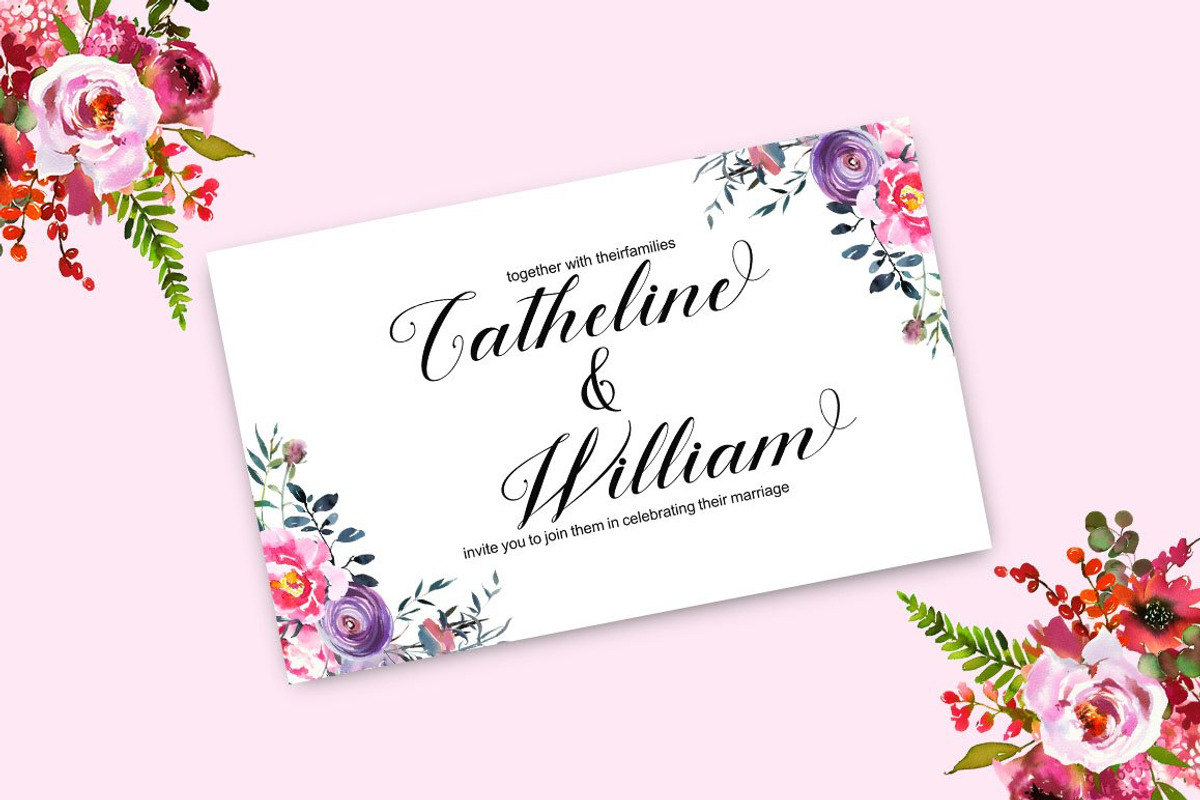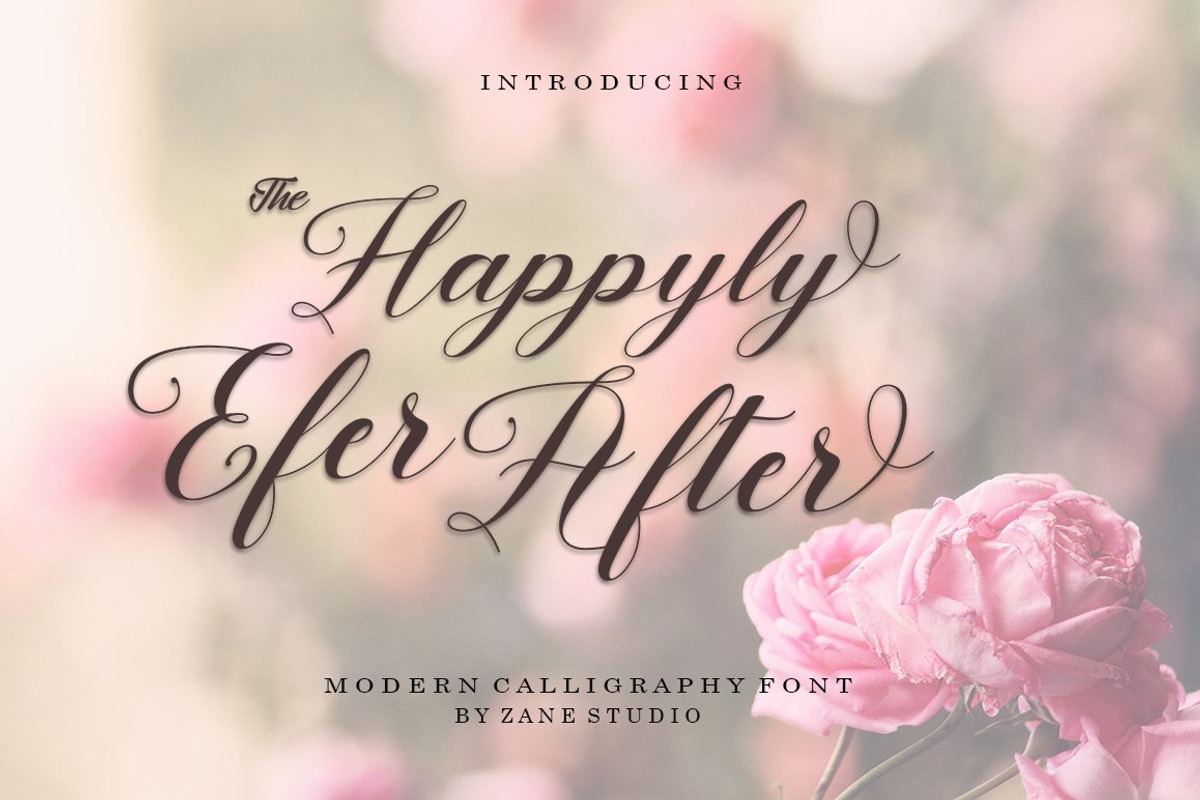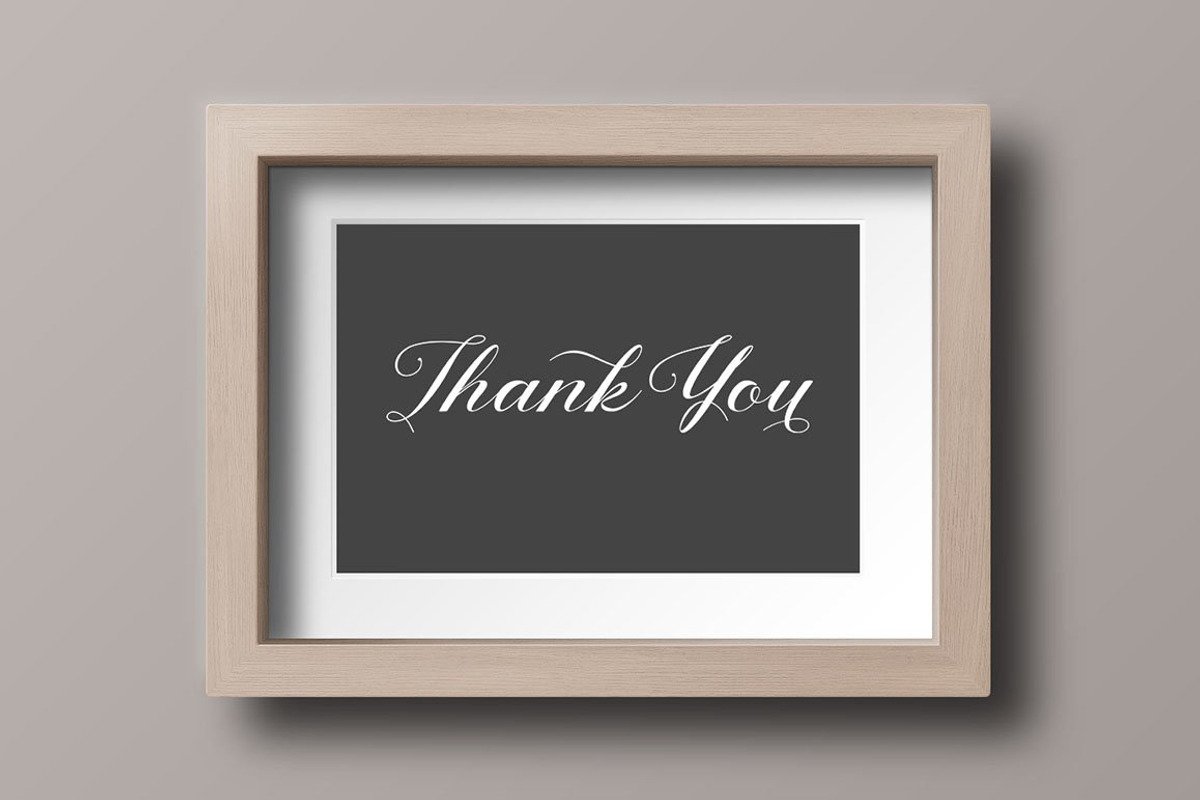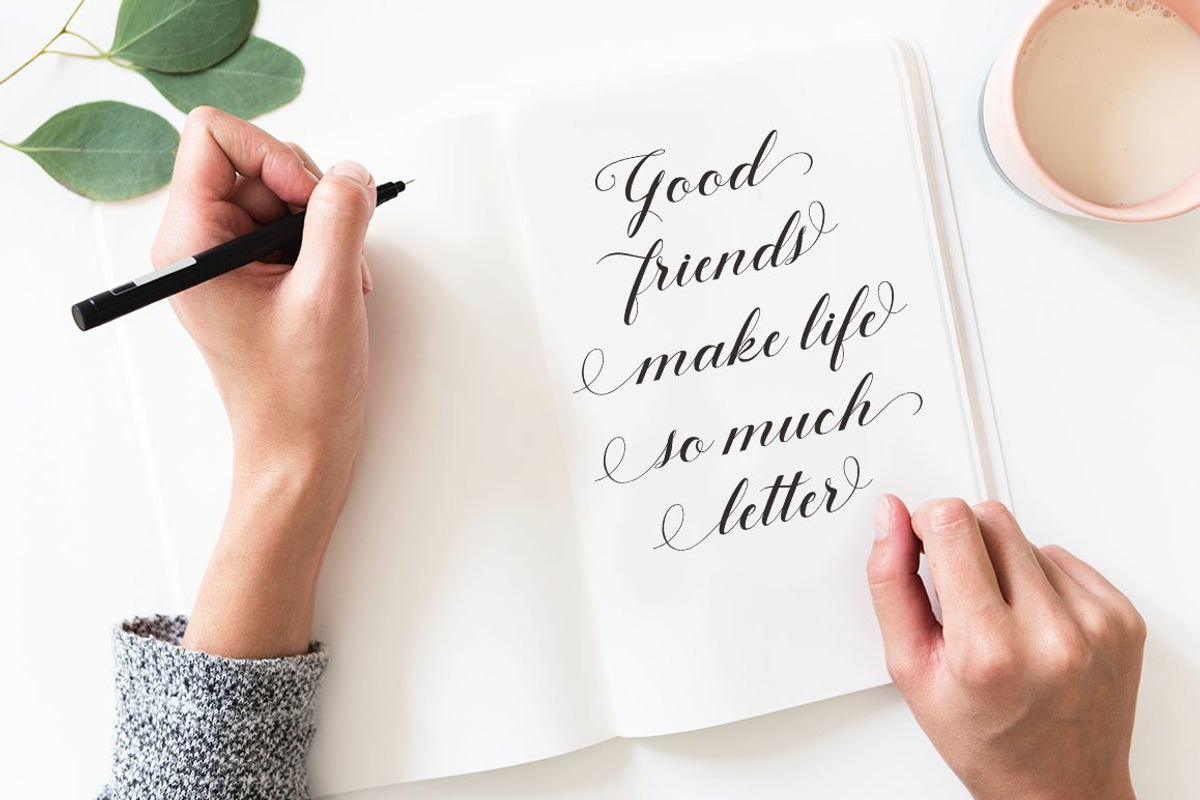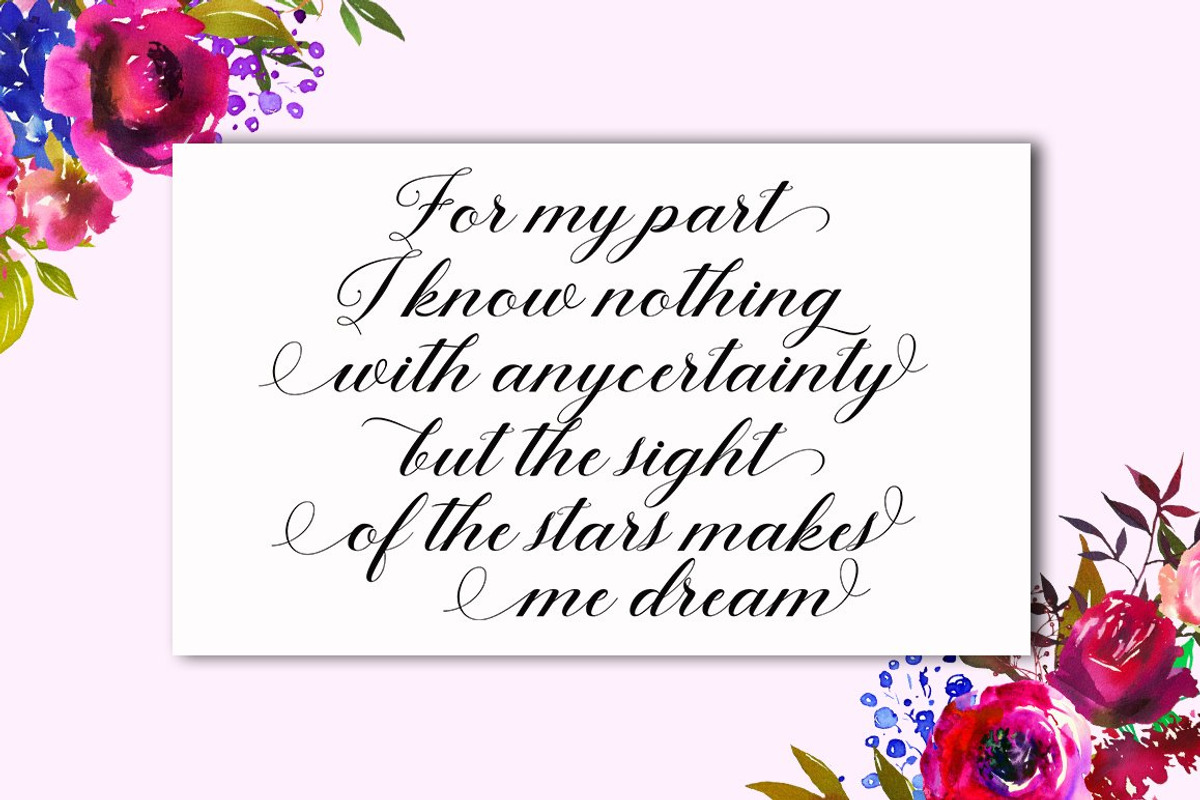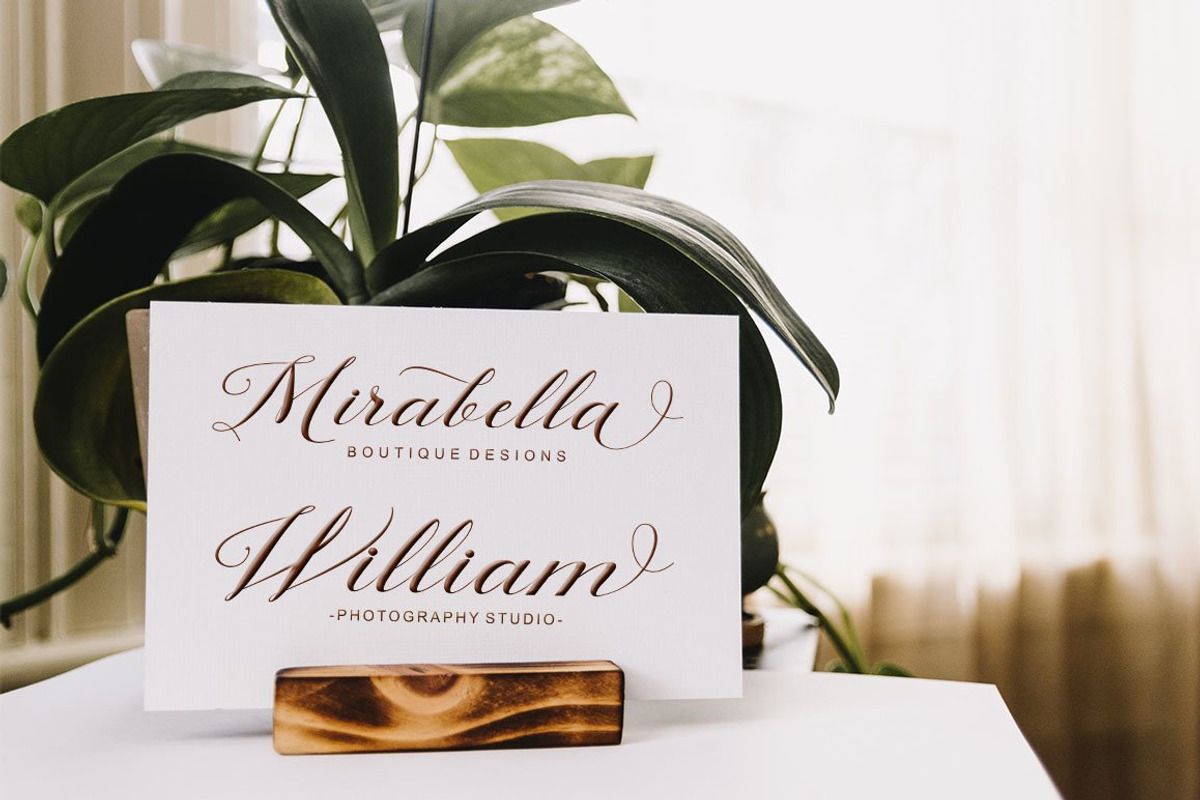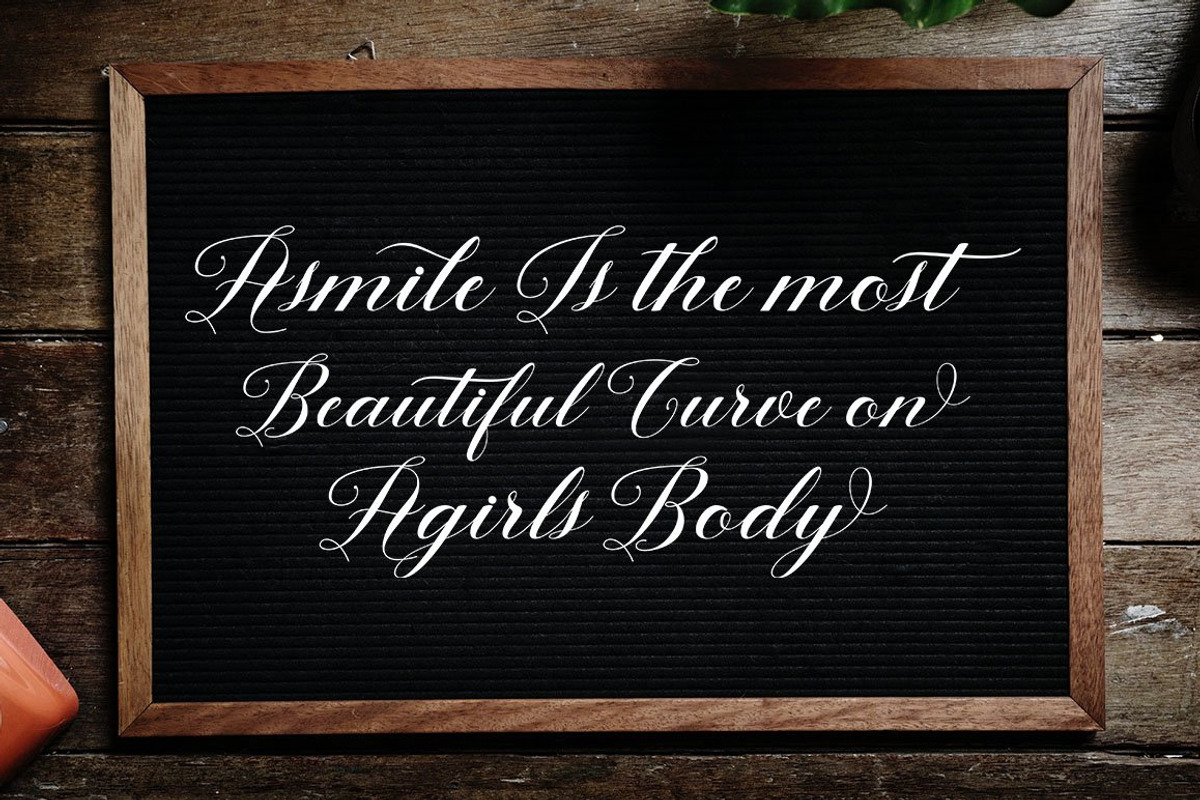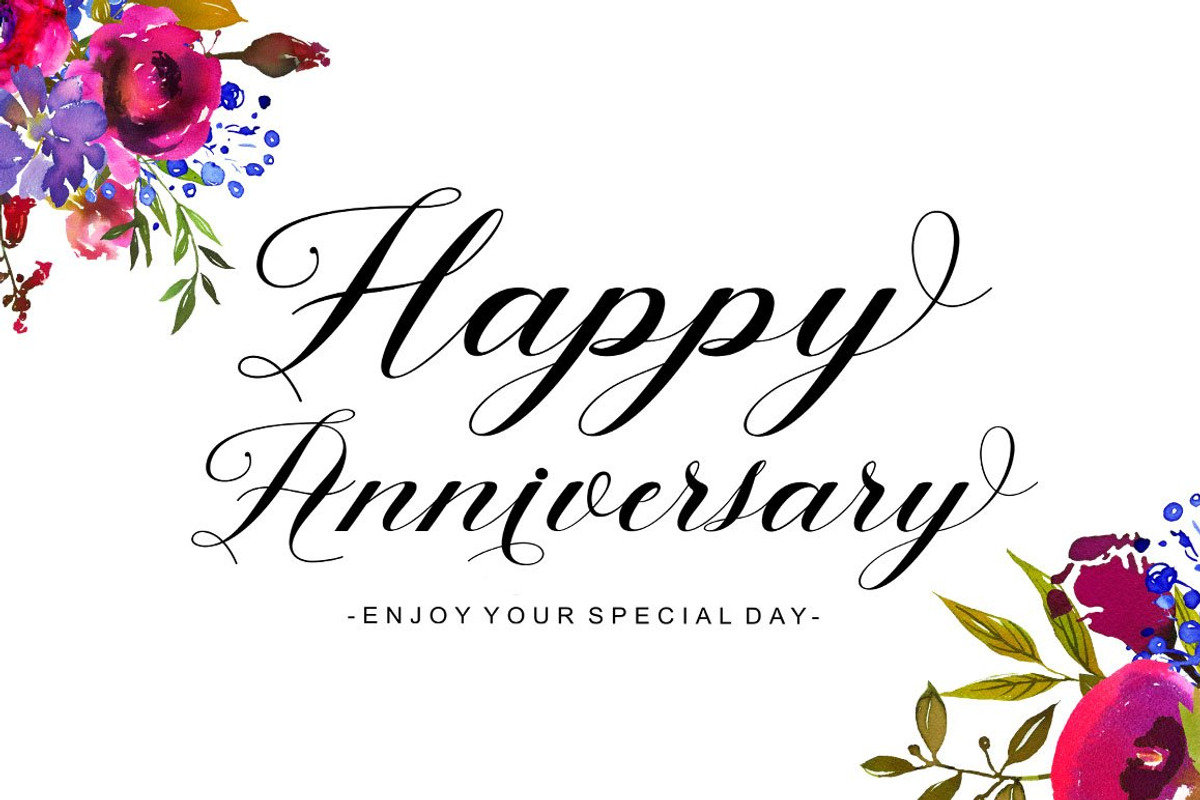
Happyly Ever After
Happyly Ever After is a new modern script font with an irregular baseline. Trendy and feminine style. Happyly Ever After looks lovely on wedding invitations, thank you cards, quotes, greeting cards, logos, business cards and more. Perfect for using in ink or watercolour. Including initial and terminal letters, alternates, ligatures and multiple language support.